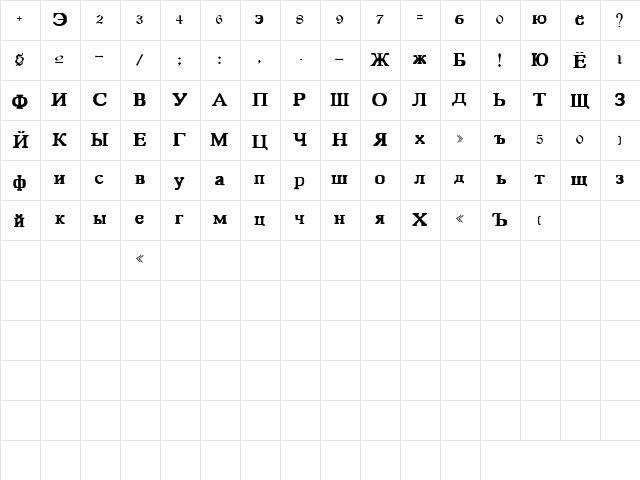
Romanoff Normal
Design Context for Romanoff Typeface
Romanoff takes a measured approach to typography — its balanced proportions and neutral character make it a reliable workhorse for both digital and print work.